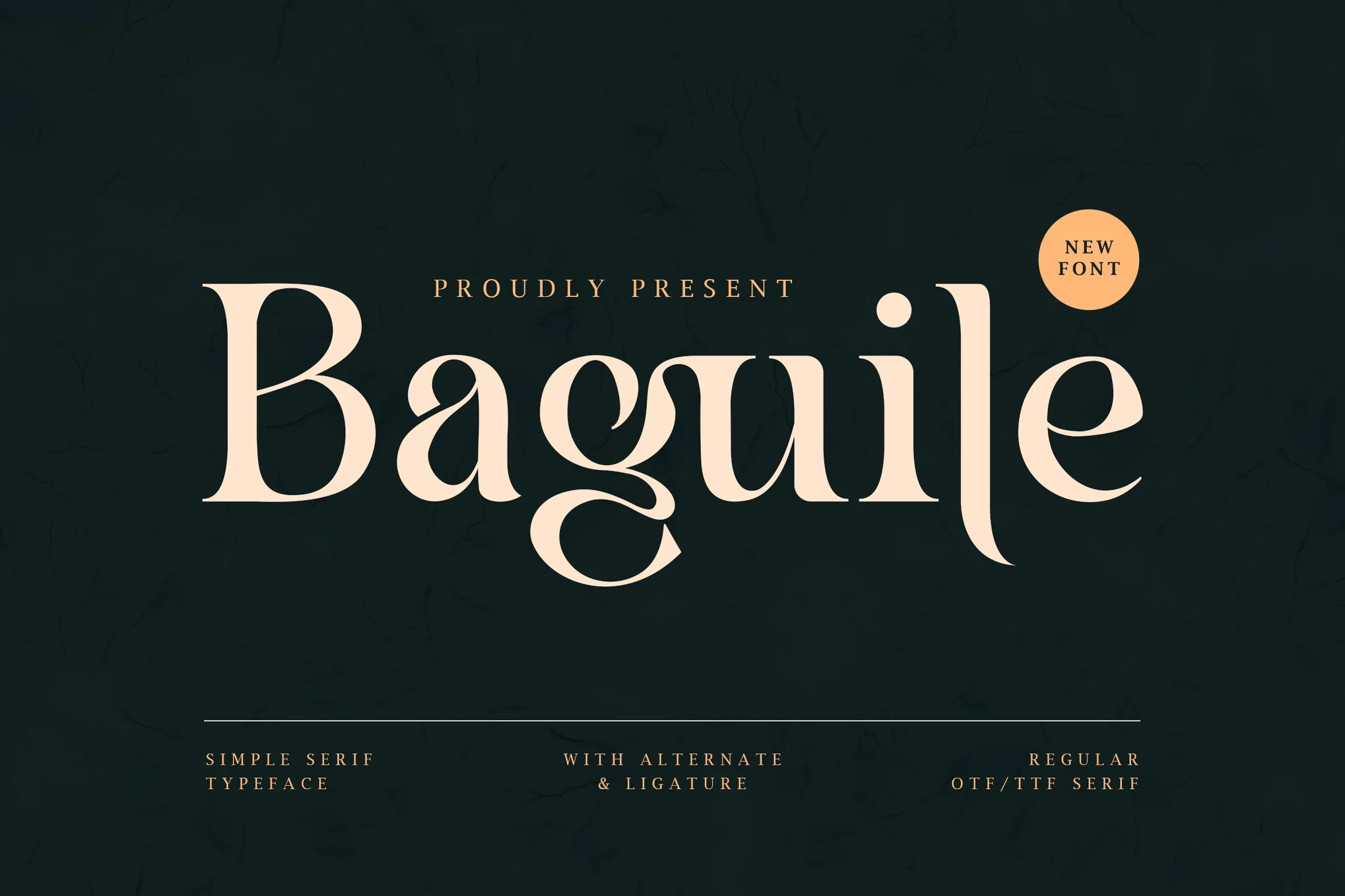
Baguile font is a beautifully crafted serif font that balances simplicity with refined detail. As part of the serif fonts family, it features delicate curves and stylish strokes that add elegance to every character. Its clean yet intricate design makes it an ideal choice for designers who want both sophistication and readability in their typography.
Whether you’re creating a timeless logo, crafting chic magazine headers, or designing stylish clothing labels, Baguile brings a quiet confidence to your work. It effortlessly enhances branding materials with its subtle flair and works well on both modern and classic design projects.
Thanks to its versatile character, Baguile fits naturally across various media—from digital designs to print packaging. Add a touch of class to any background image or layout using this elegant typeface. Its adaptable nature and stunning form make it a smart pick for creative professionals seeking dependable, stylish results.